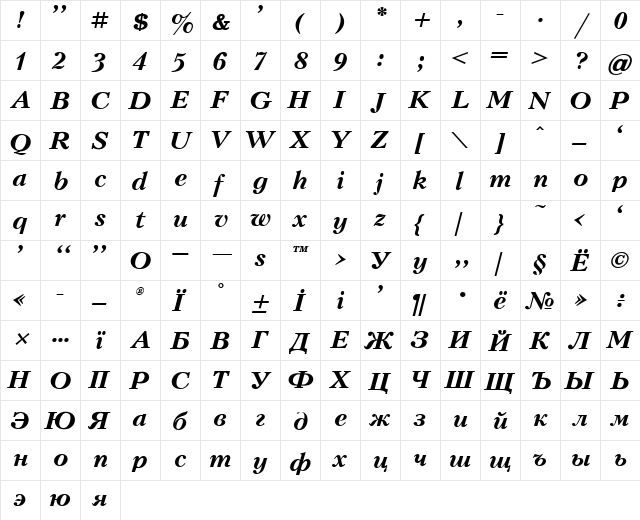
Kudrashov Bold Italic Font Preview
Design Context for Kudrashov Typeface
Kudrashov takes a measured approach to typography — its balanced proportions and neutral character make it a reliable workhorse for both digital and print work. Its italic angle brings a sense of urgency and motion to the letterforms. Its bold stroke weight gives it real presence on the page.
Pro Tip: Try Kudrashov for annotation and caption copy alongside an upright companion — the contrast in angle creates a dynamic but ordered typographic system.